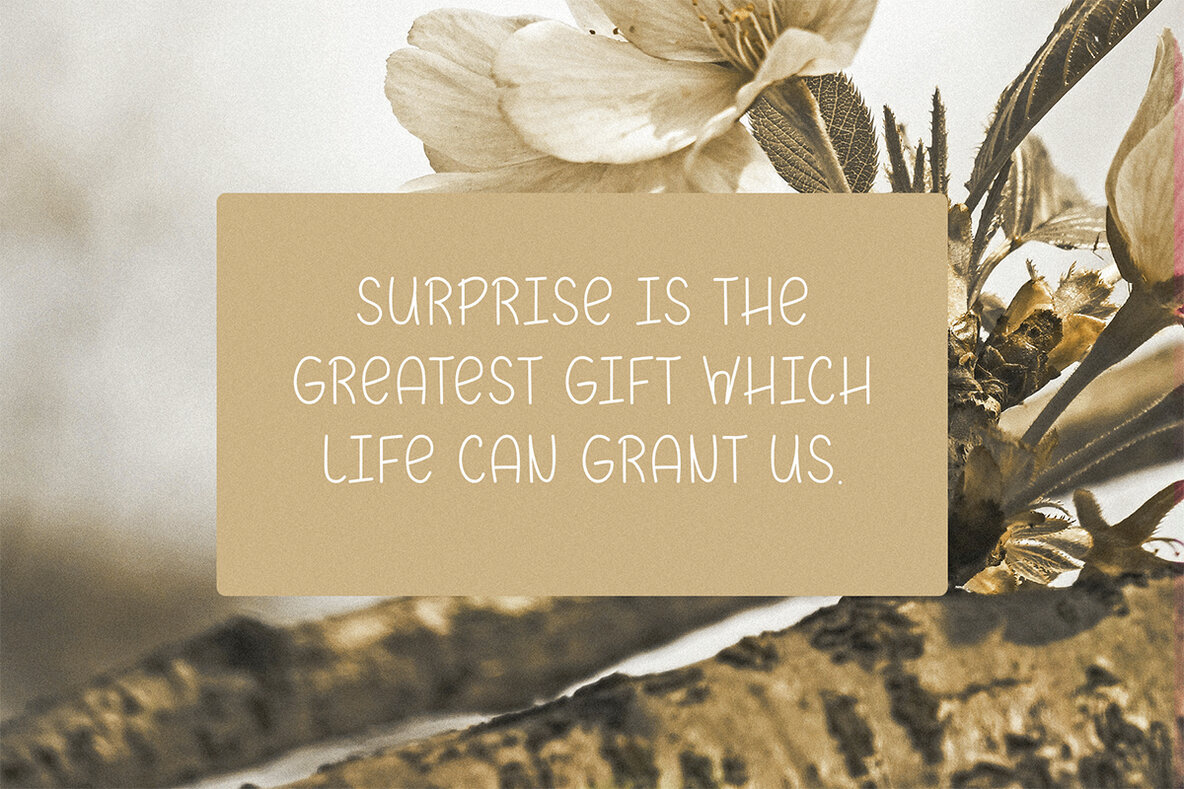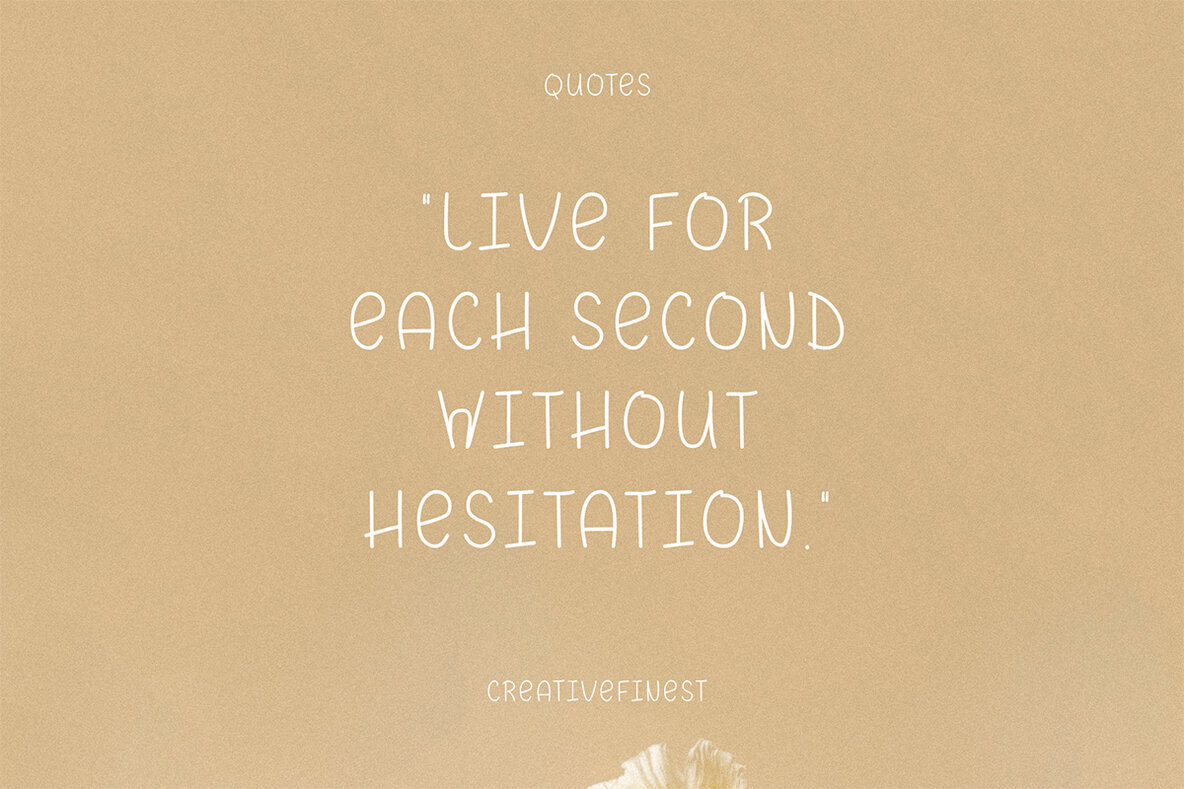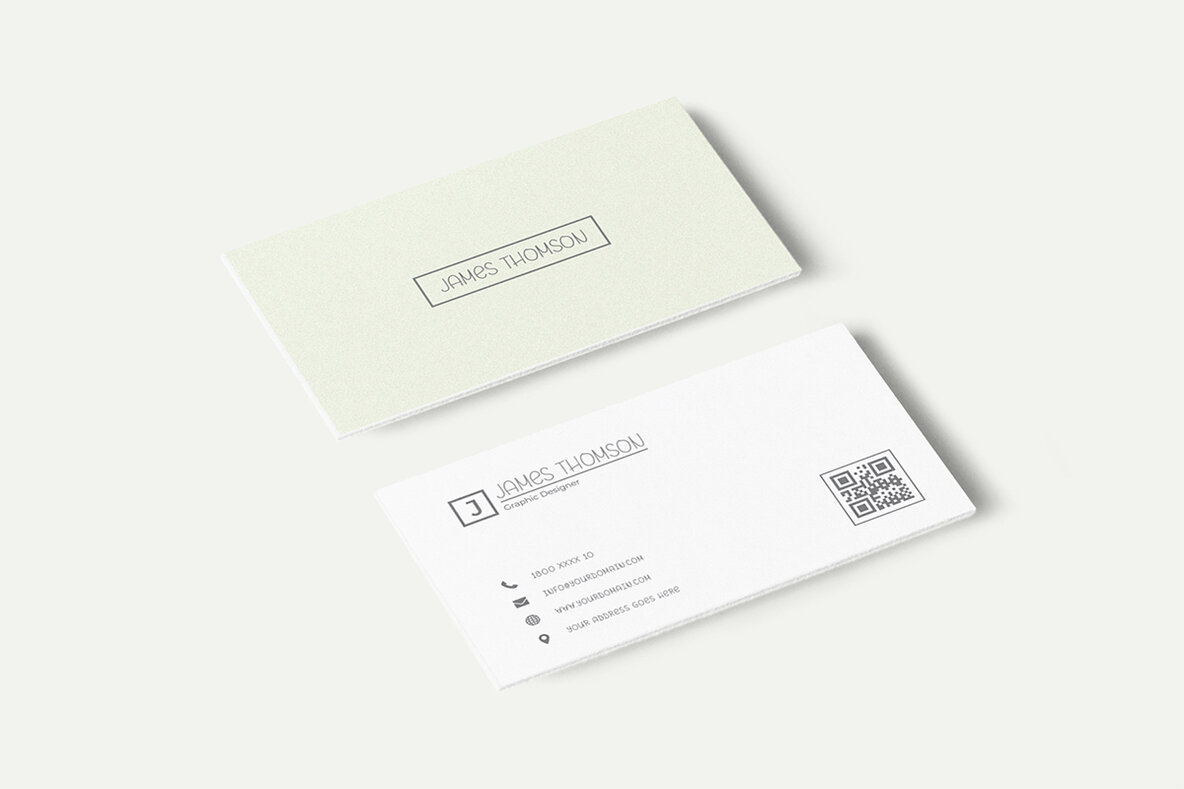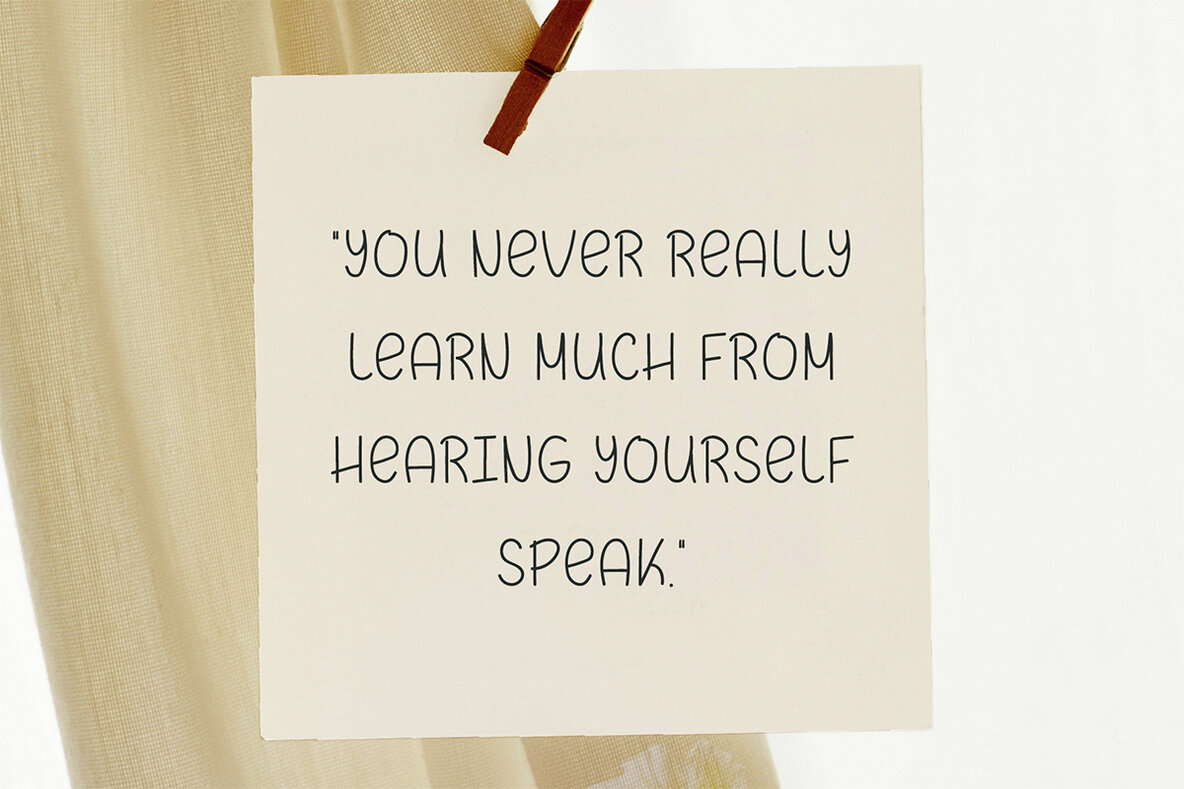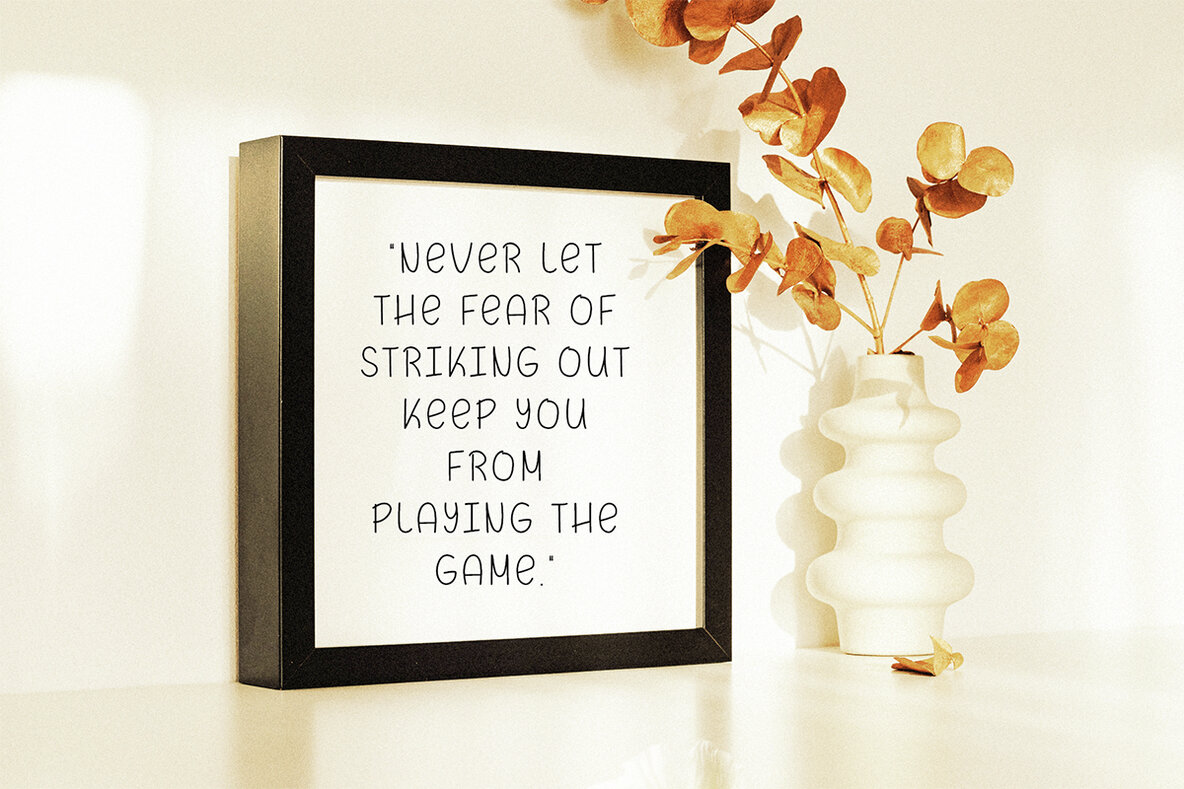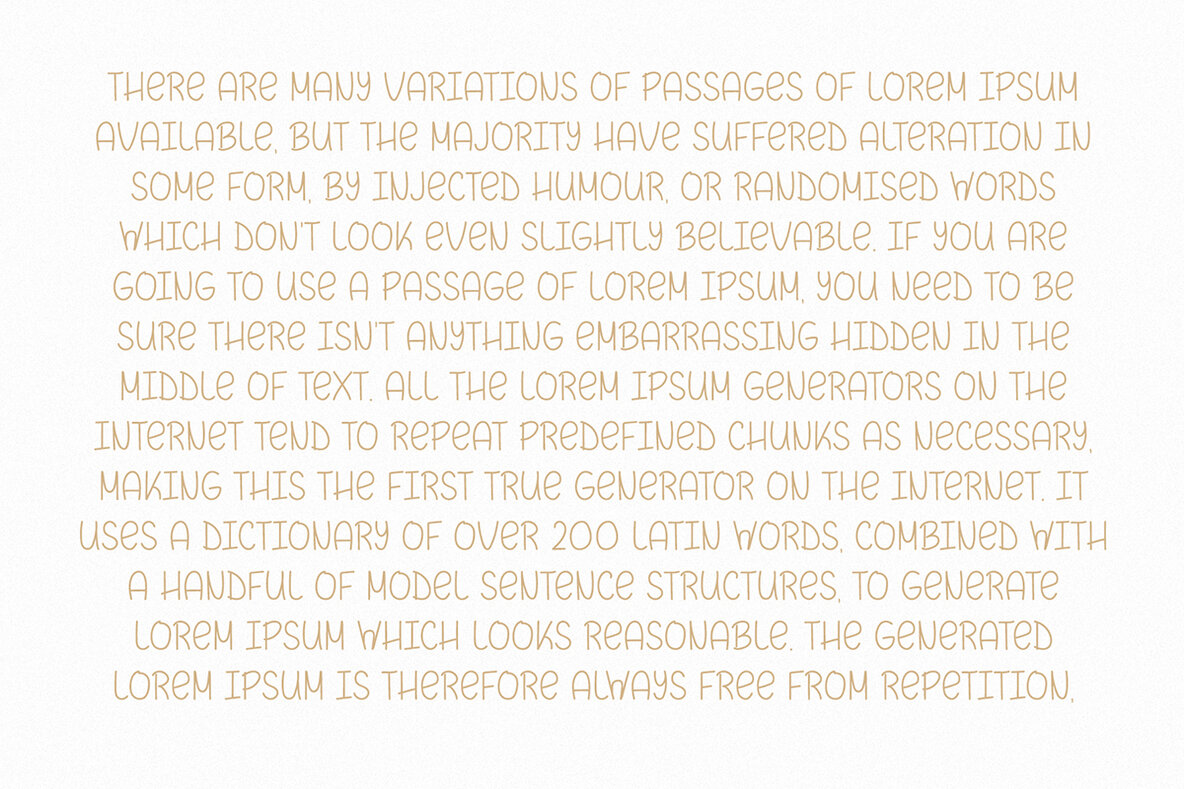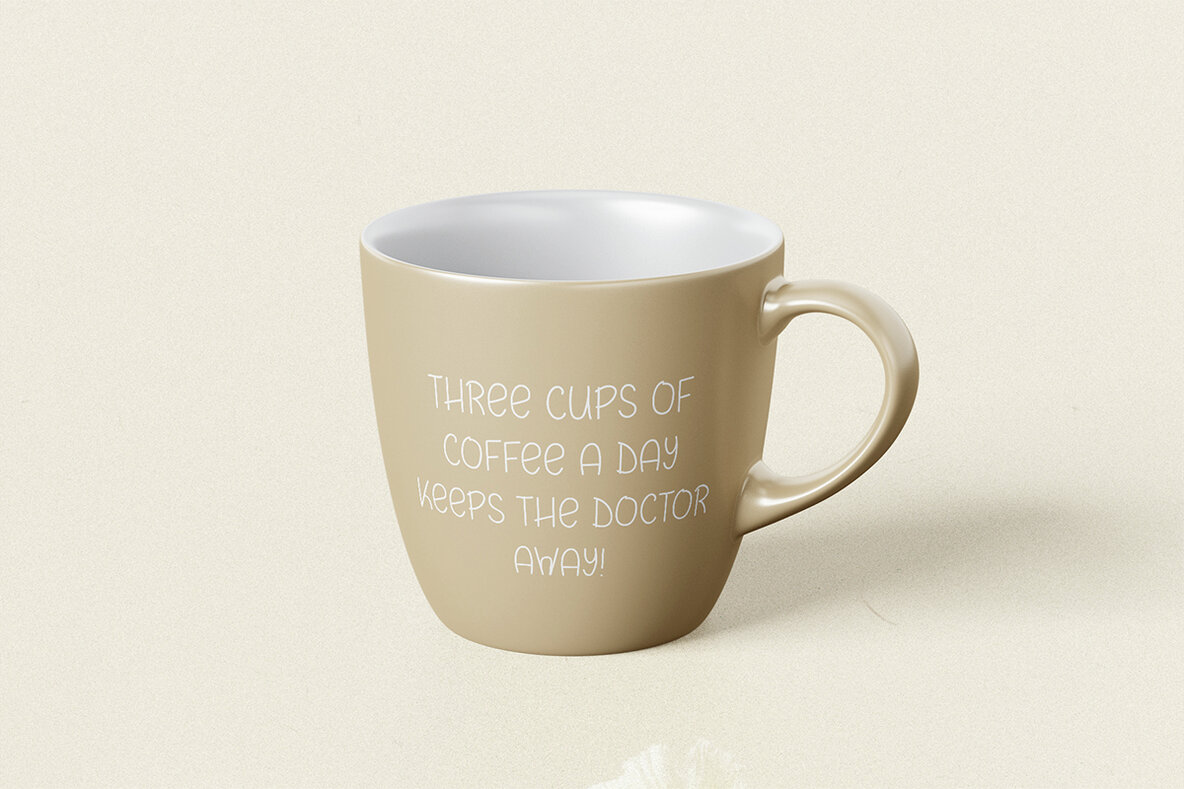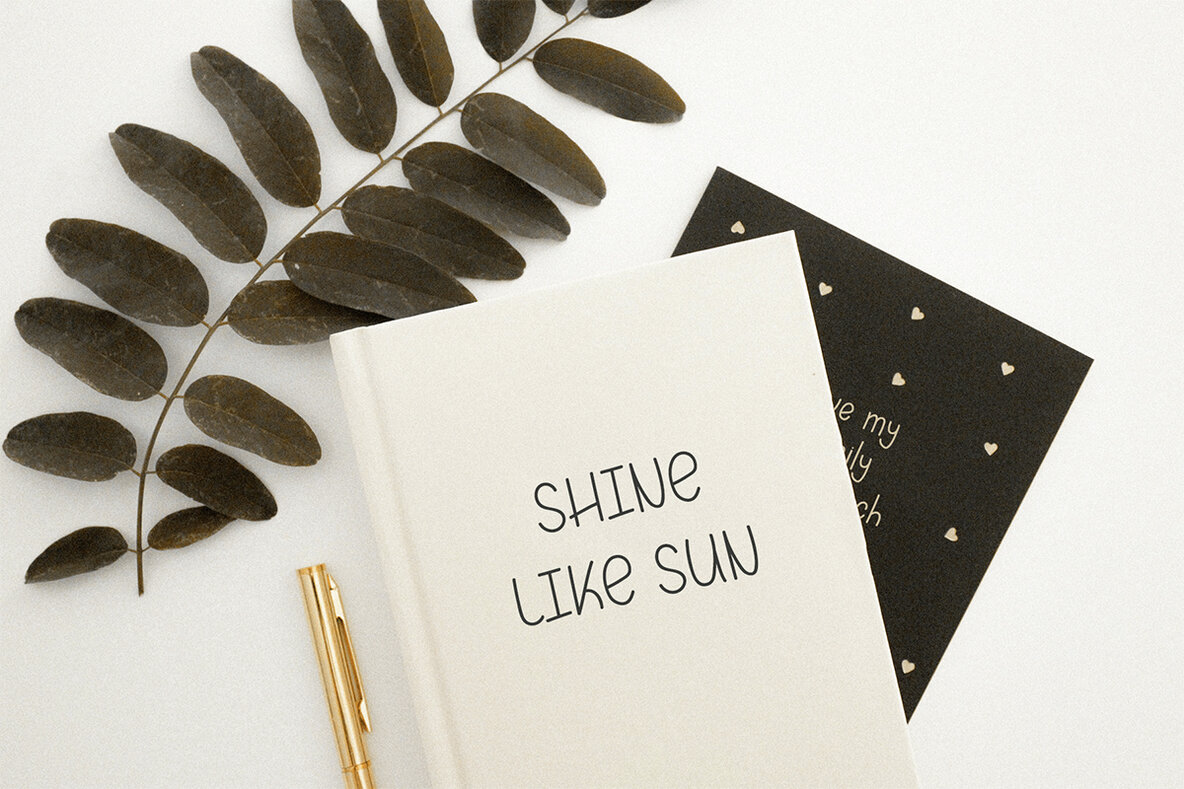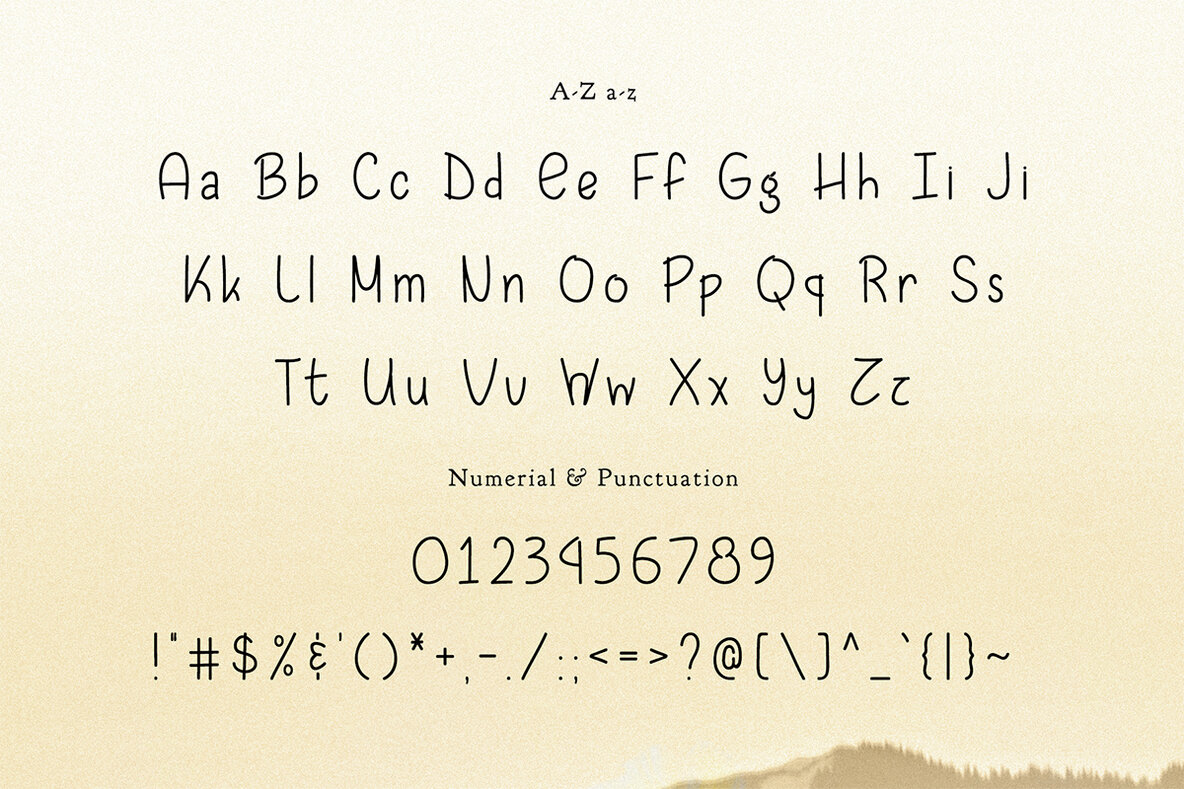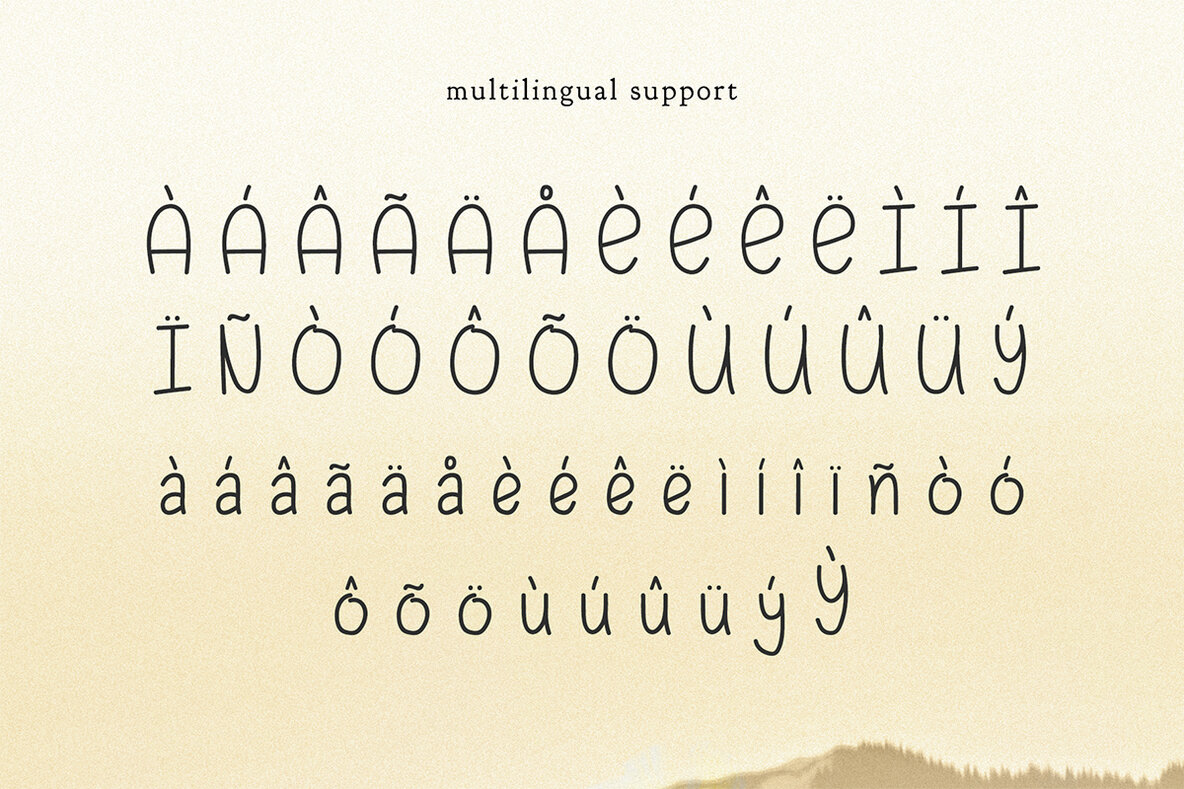
Boran Font
Boran Regular
Boran Handmade Font is a charming and whimsical typeface perfect for adding a playful touch to your projects. This versatile font offers a full set of uppercase and lowercase letters, numbers, punctuation, and symbols, all designed with a friendly, handcrafted feel. It also supports multiple languages, making it suitable for international audiences. Ideal for a wide range of applications, Boran Handmade Font is perfect for packaging, presentations, logos, headlines, posters, and branding. It's also excellent for more personal projects like note-making, invitations, children's books, and creative works.
This font stands out with its ability to adapt to various contexts, from professional web layouts and advertising campaigns to the more intimate aesthetics of magazine headings and kids' projects. Boran Handmade Font features an extensive range of supported characters, ensuring that your creative potential is never limited. Bring a touch of personality and charm to your next project with the Boran Handmade Font.